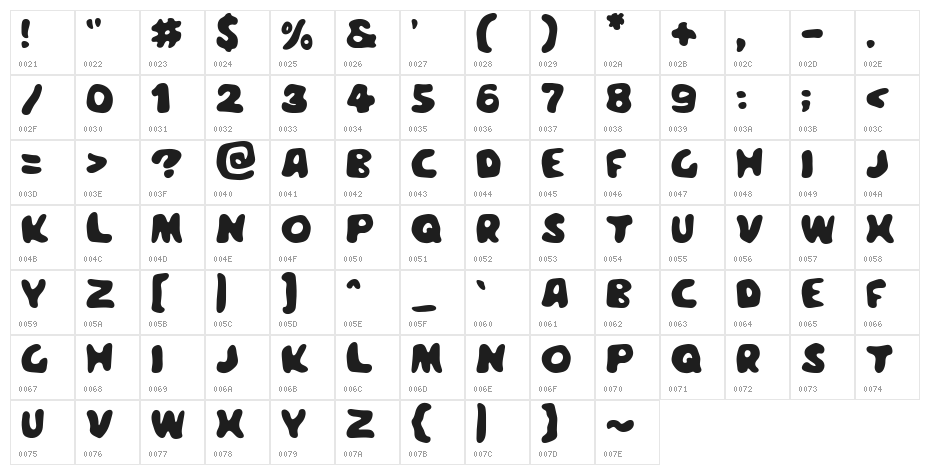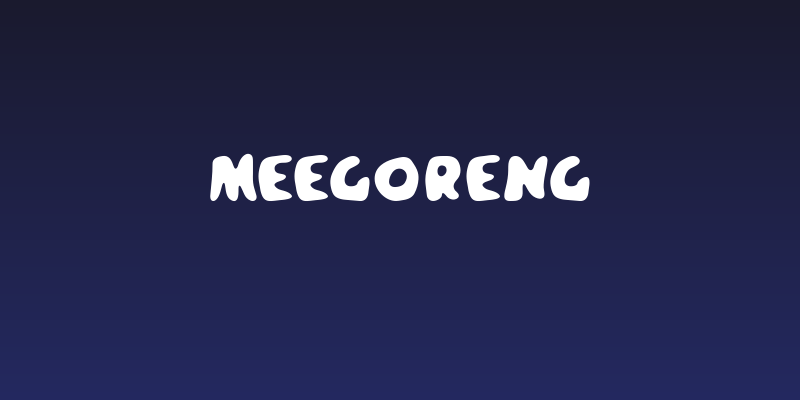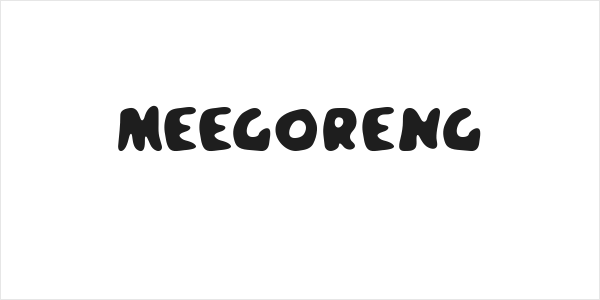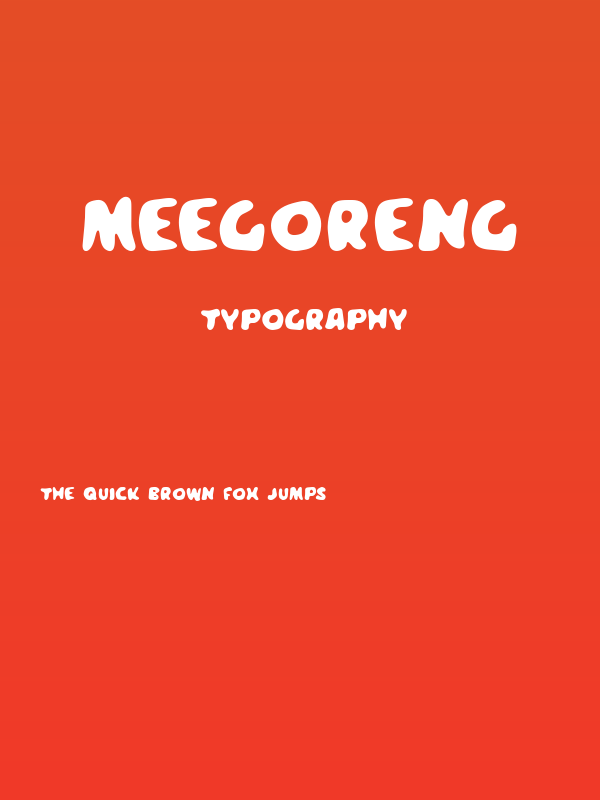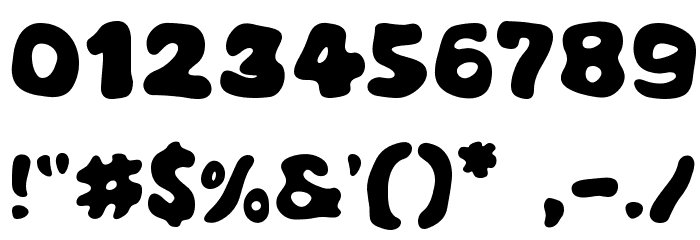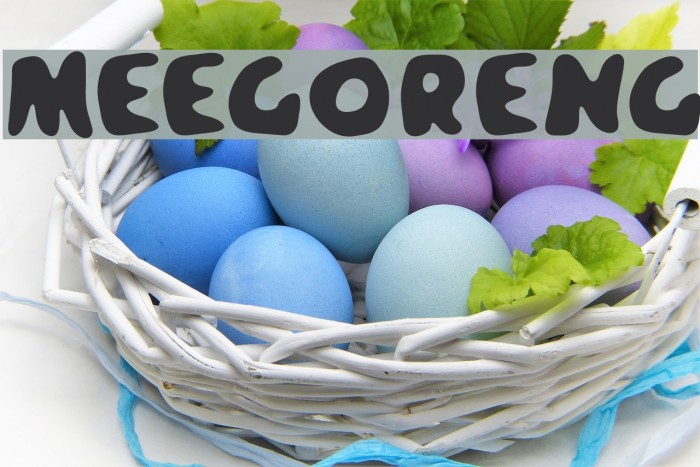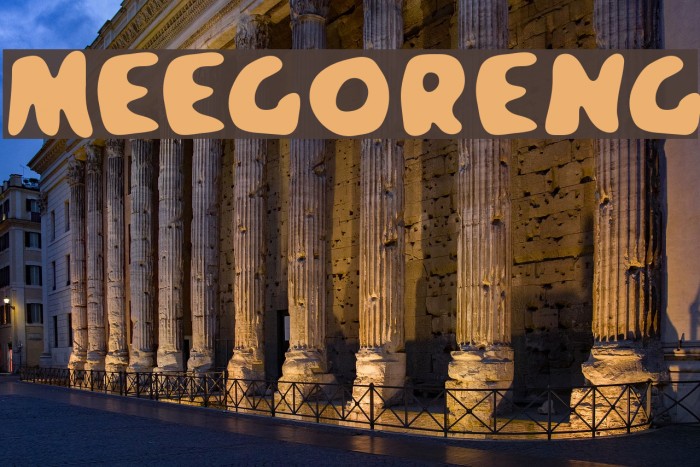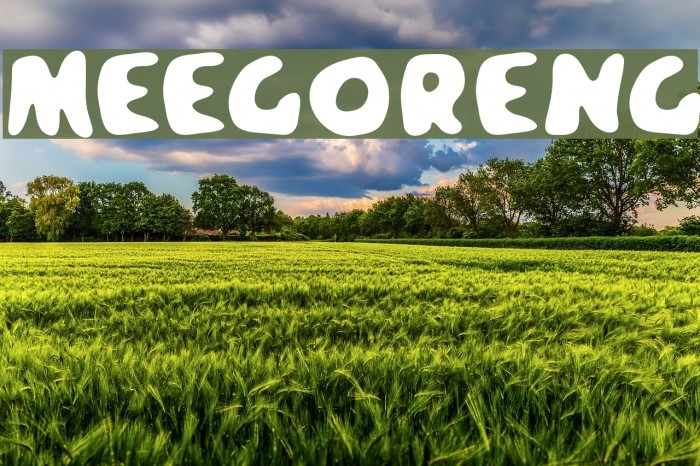
Meegoreng Font
This playful and bold font features rounded, bubbly characters that exude a sense of fun and whimsy. The letters are thick and have a soft, organic feel, making them highly legible while maintaining a unique, informal style. The font's design is consistent across both uppercase and lowercase letters, as well as numbers and special characters, providing a cohesive look. Its exaggerated curves and smooth edges give it a friendly and approachable appearance, ideal for projects that require a touch of creativity and lightheartedness.
| Overall Style | Playful, Whimsical |
| Proposed Projects | Ideal for children's books, playful branding, party invitations, and creative posters. |